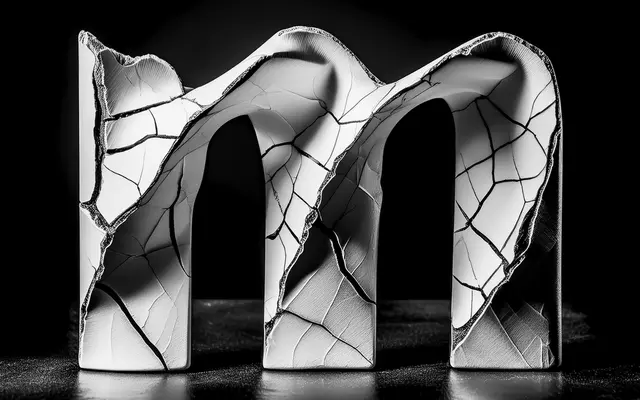
A humanist reworking of the geometric Mynor, introducing organic forms and expressive details to improve readability in extended text.
Where Mynor leaned on squarish geometric construction, Mynor-B introduces organic, humanist forms inspired by the Japanese art of Kintsugi, aiming for greater warmth and legibility in longer reads. The family spans seven weights with matching obliques and over 950 characters per style, including fourteen number variations, alternate lowercase characters, small caps and arrows. Language support covers Western, Southern and Central Europe as well as Vietnamese.
Mynor-B is described as a departure from the geometric design of Mynor towards a more humanist, expressive style with organic forms, placing it firmly in the humanist sans-serif subcategory.